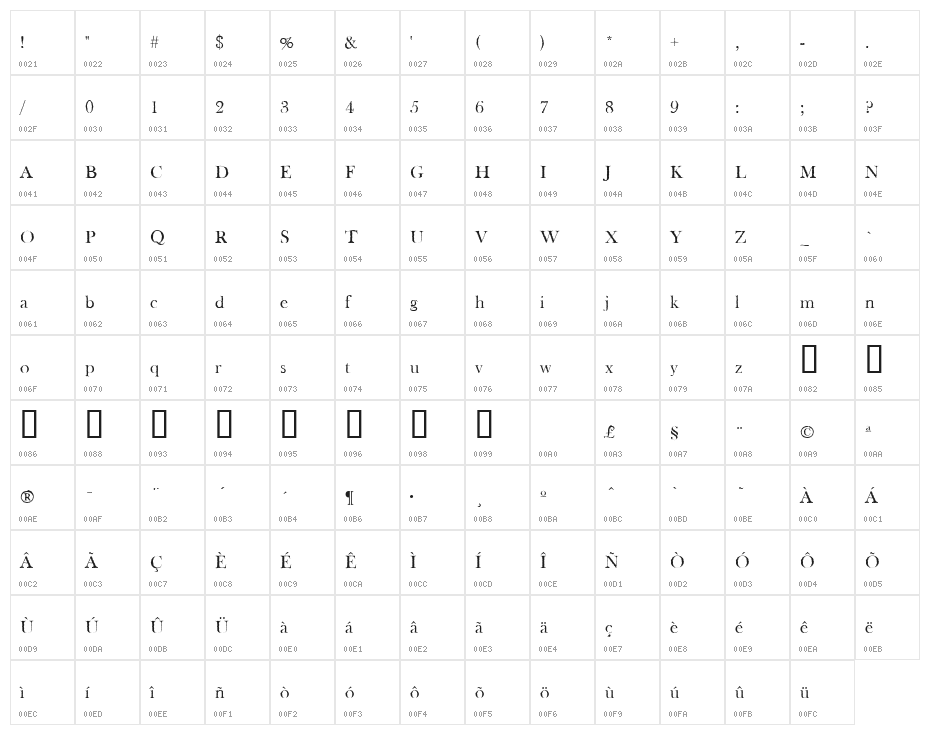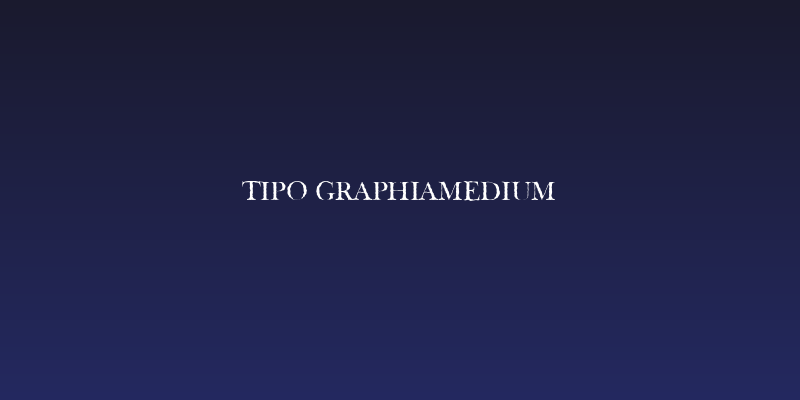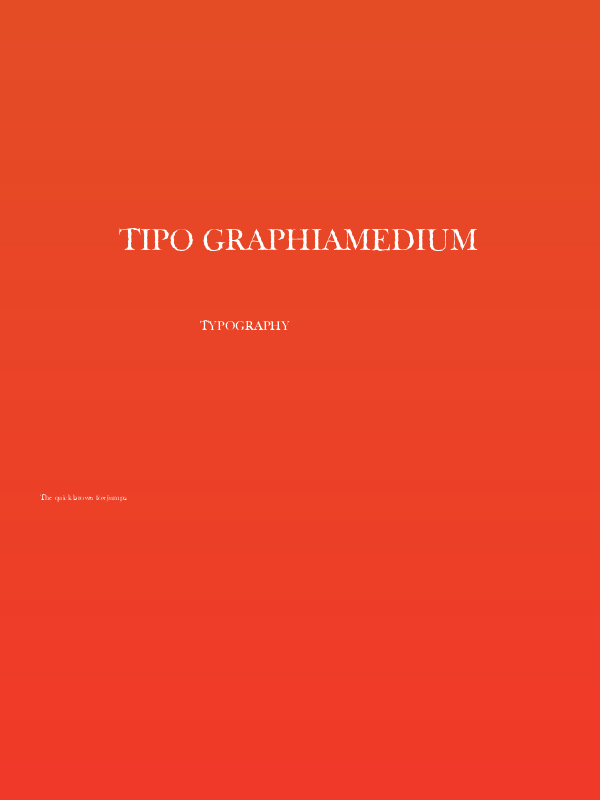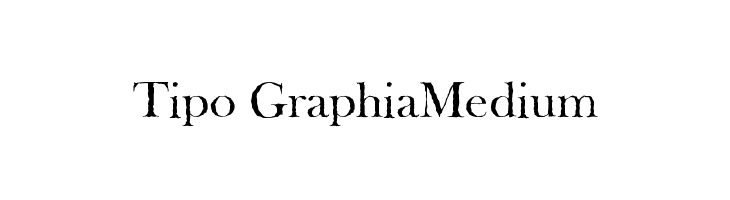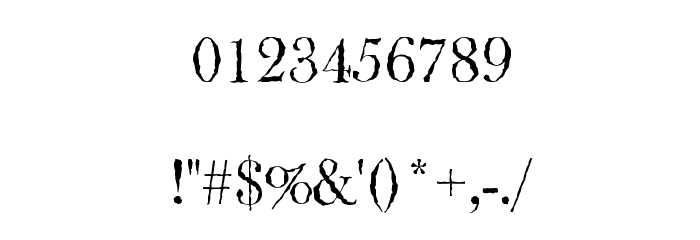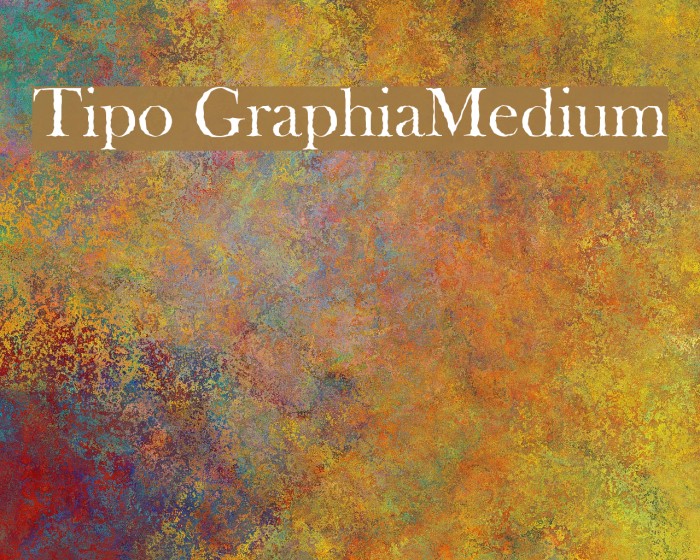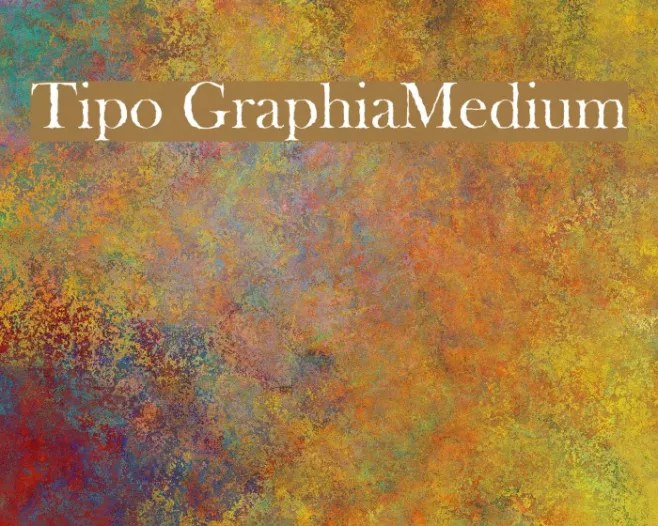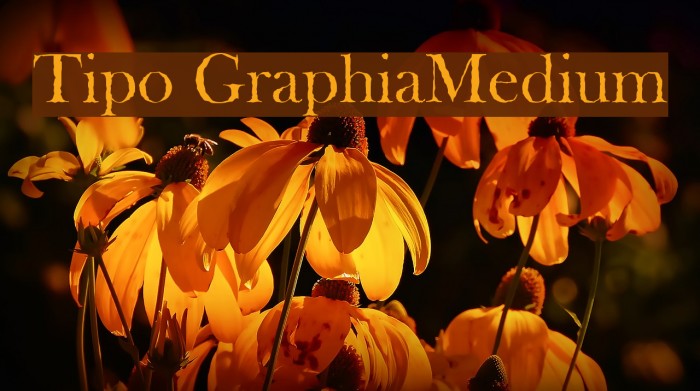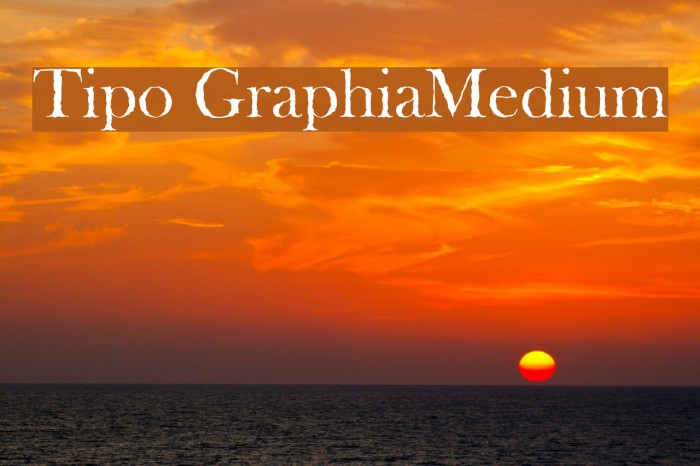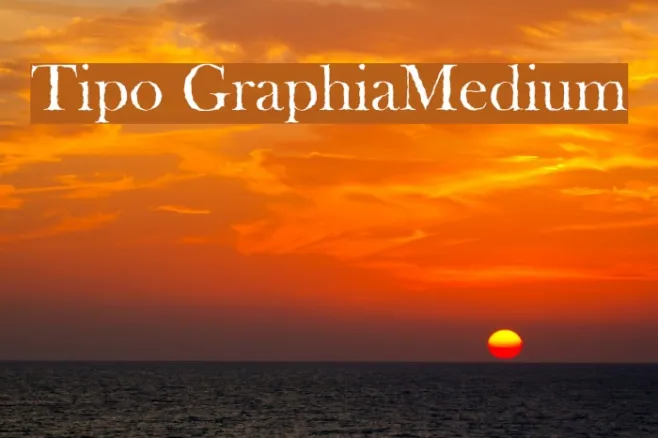
Tipo GraphiaMedium Font
Tipo GraphiaMedium Description
This font features a classic serif style with a slightly distressed appearance, giving it a vintage and handcrafted feel. The uppercase letters are bold and commanding, while the lowercase letters maintain a consistent and elegant flow. The numerals are clear and distinct, matching the overall aesthetic of the alphabet. Special characters are well-integrated, maintaining the font's unique style. The strokes vary in thickness, providing a medium contrast that enhances readability while adding character. This font is suitable for projects that require a touch of sophistication and a hint of nostalgia.
| Use Case | Headlines, Logos, Editorial design |
| Proposed Projects | Ideal for branding, editorial design, book covers, and vintage-themed projects. |